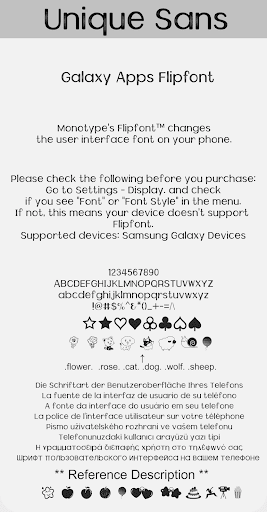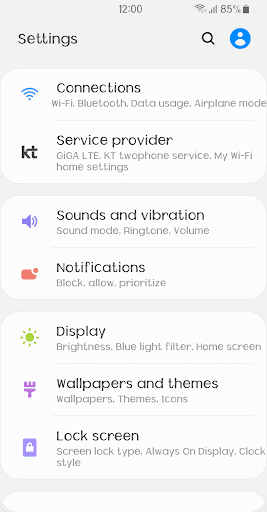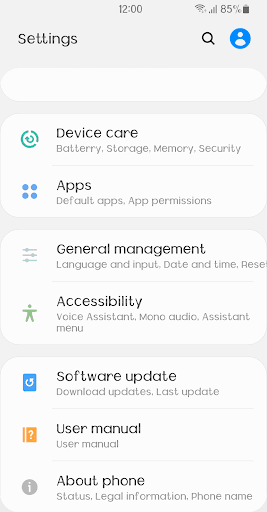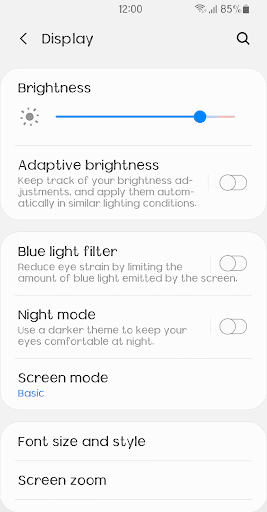
BRUniqueSans
It's unique sans.
This font has some feature.
1 .flower. .rose. .cat.. .dog. wolf. sheep. ,heart, ,star, ,boy, ,girl, ,club, ,phone, ,finger, ==> Convert to Icon
2 .^^. .\/. .**. .Apple. .apple. .peach. .Peach. .pear. .Pear. .balloon. .Balloon.
.heart. .Heart. .star. .Star. .cake. .Cake. .dance. .Dance.
.car. .Car. .train. .Train. .movie. .camera. .pocorn. .snail.